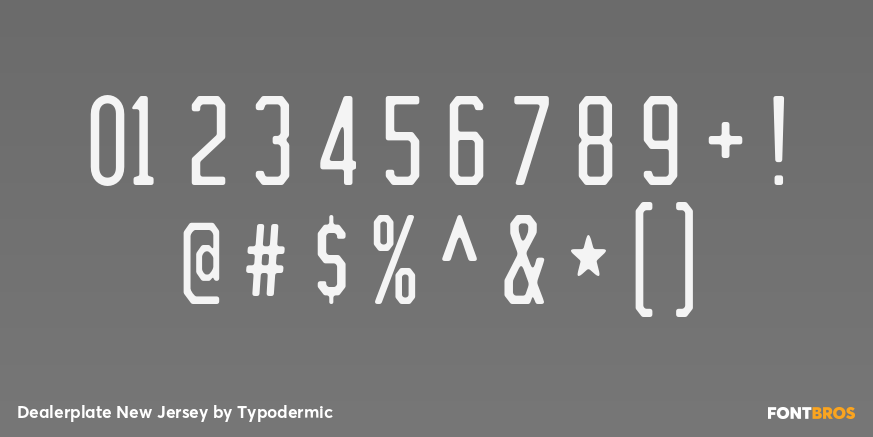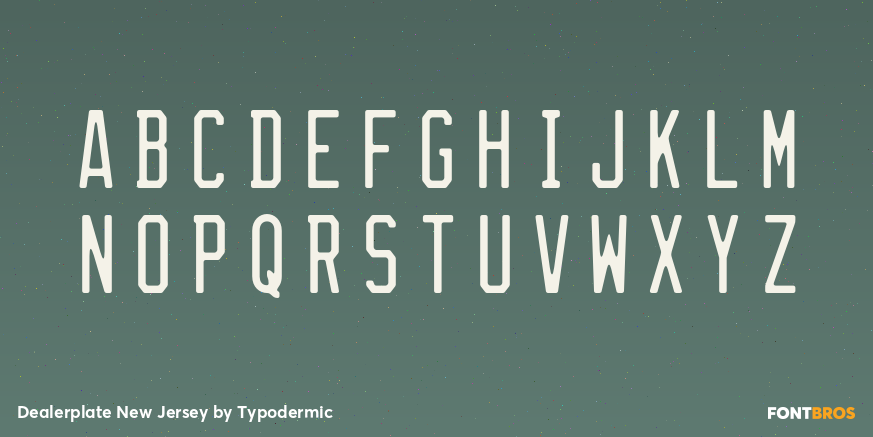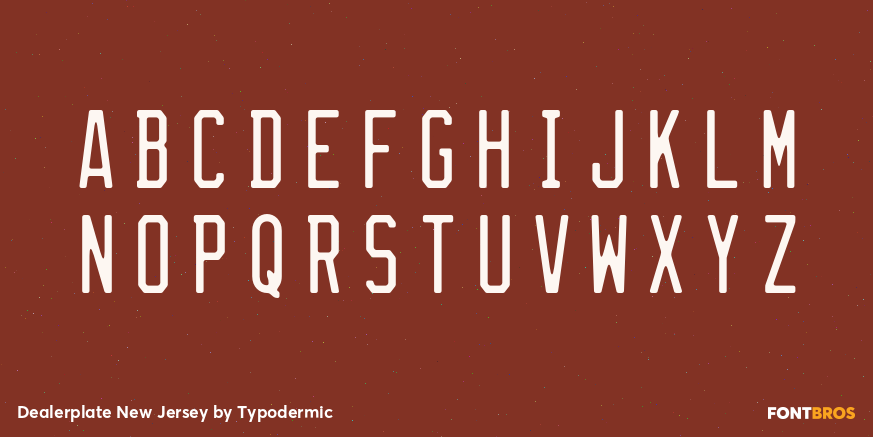
Dealerplate New Jersey
Dealerplate New Jersey expands New Jersey-inspired plate lettering into a complete alphabet for believable Northeastern vehicle graphics. It gives art departments and environment artists the characters needed for invented registrations and companion typography while keeping the plate tied to a New Jersey setting.
Use it for Turnpike road scenes, suburban crime stories, police procedurals, commuter-world props, driving games, virtual-production traffic, evidence boards, impound records, parking permits, and dealership inserts. When a plate needs to share its visual language with a case-file heading, garage sign, vehicle menu, or fictional registration document, this style supplies regional continuity without resorting to generic plate lettering.